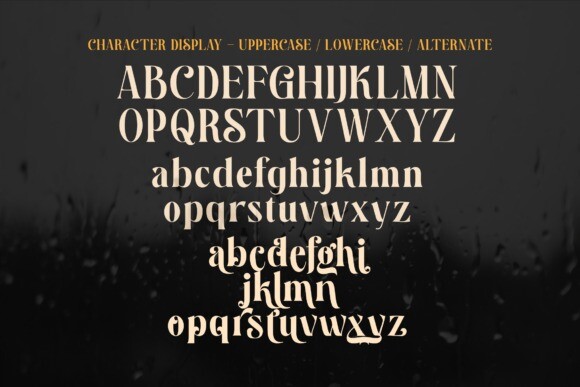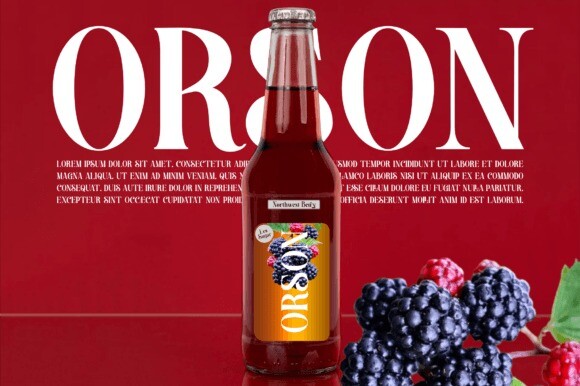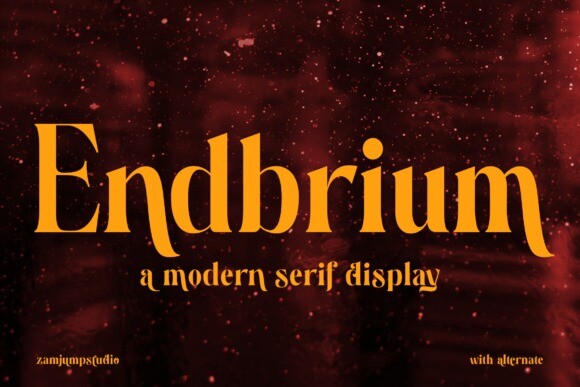
Endbrium Font
Designer: zamjump
Endbrium Font is a bold yet refined modern serif font, perfect for making a statement in any design. Its elegant serifs and striking letterforms blend classic style with a modern touch. With alternate letters and ligatures, it lets designers create unique, smooth typography. Ideal for luxury branding, headlines, and editorial layouts, this font adds personality and professionalism to any project.